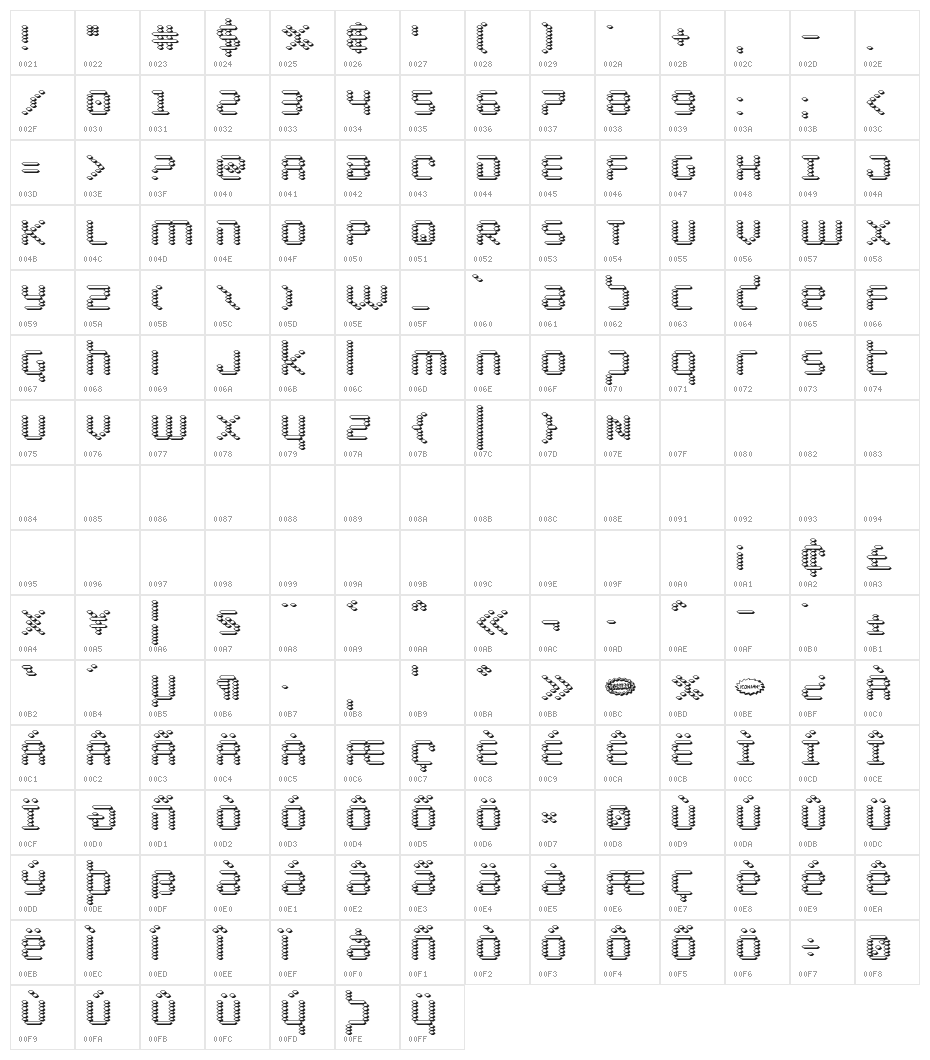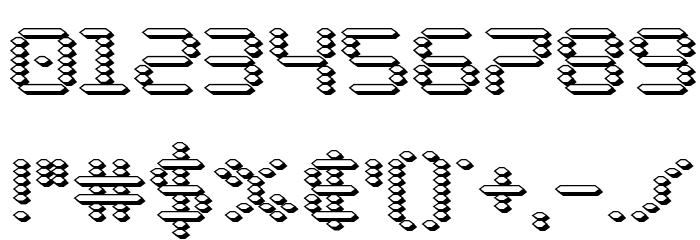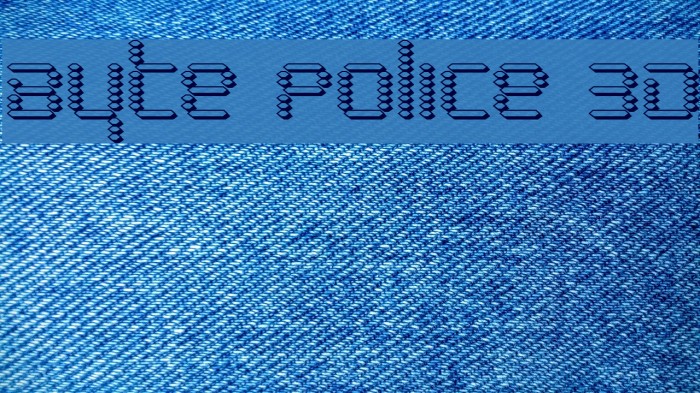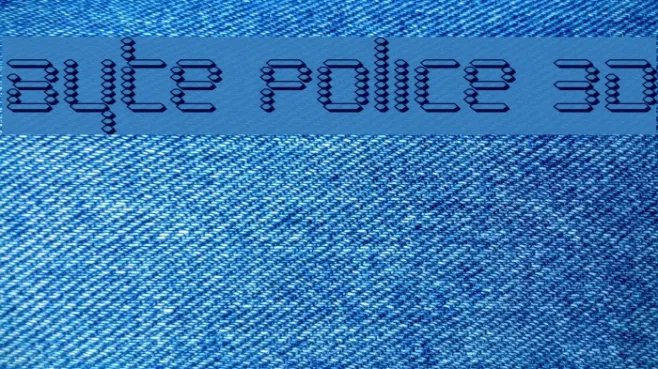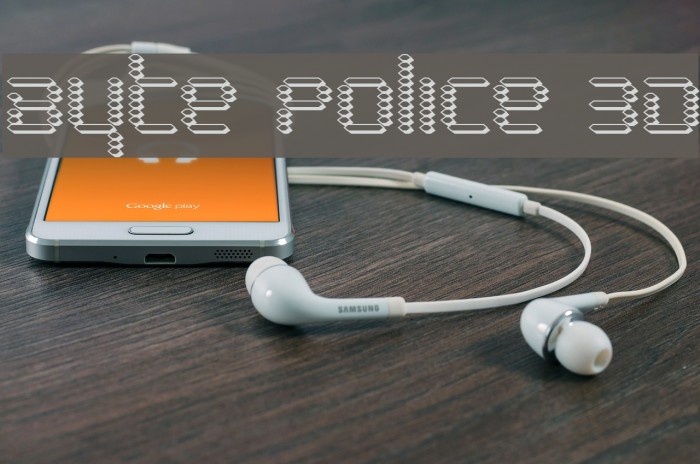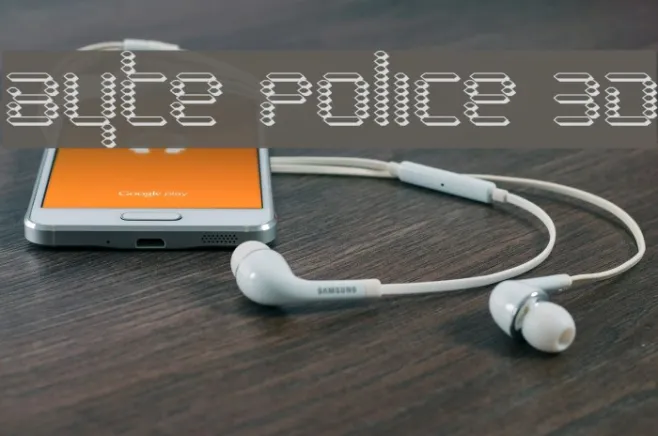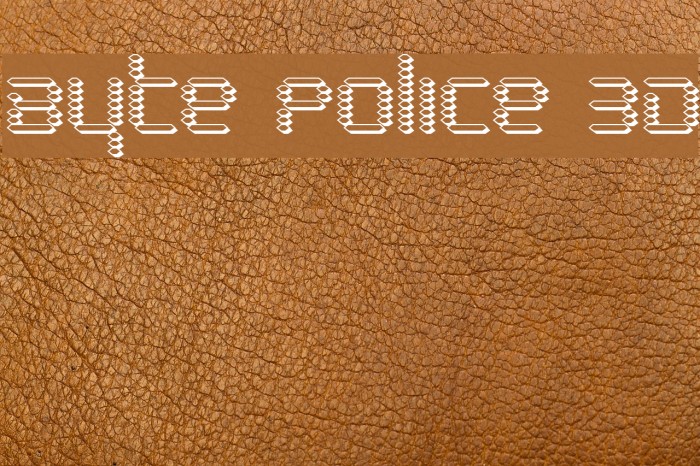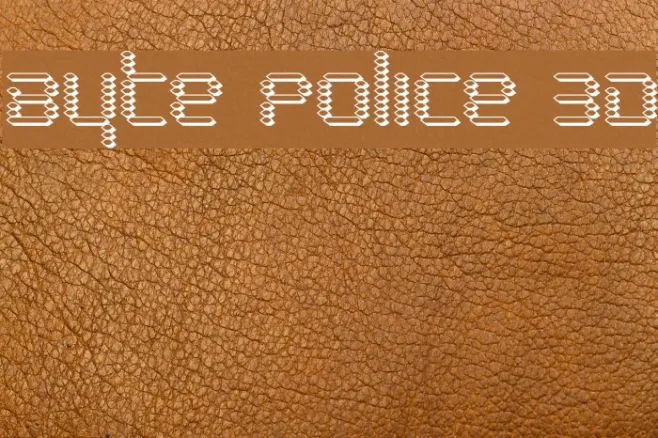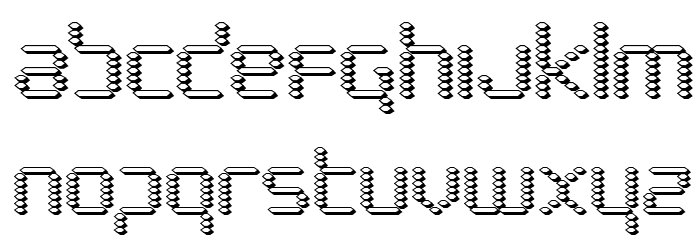
Byte Police 3D Font
Byte Police 3D Description
This font features a unique 3D effect, with each character composed of a series of interconnected dots and lines that create a sense of depth and dimension. The geometric design is consistent across uppercase and lowercase letters, as well as numbers and special characters. The style is reminiscent of digital or technological themes, making it ideal for projects that require a modern and innovative look. The characters are evenly spaced, ensuring readability while maintaining the intricate design. The font's playful yet structured appearance makes it versatile for various creative applications.
| Proposed Projects | Ideal for digital art, tech branding, video game design, and futuristic posters. |